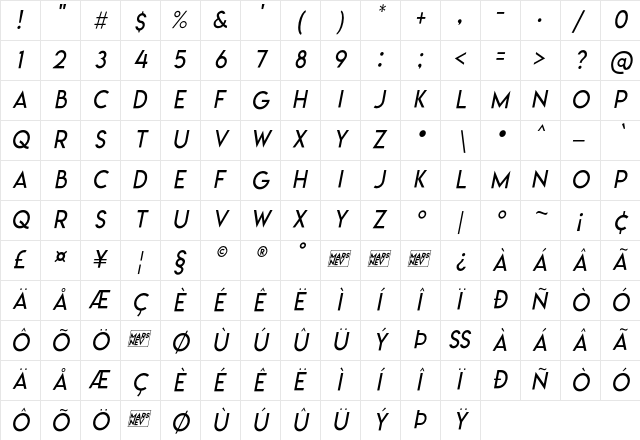
Lemon/Milk light italic
Design Context for Lemon/Milk Typeface
Lemon/Milk offers clean, dependable letterforms without strong stylistic allegiance, making it a practical choice for designers who need flexibility. The slanted form adds forward momentum and visual energy. The delicate stroke weight brings airiness and refinement to layouts.
Pro Tip: Use Lemon/Milk for emphasis, pull quotes, and subheadings where its slanted energy can add rhythm to the layout.